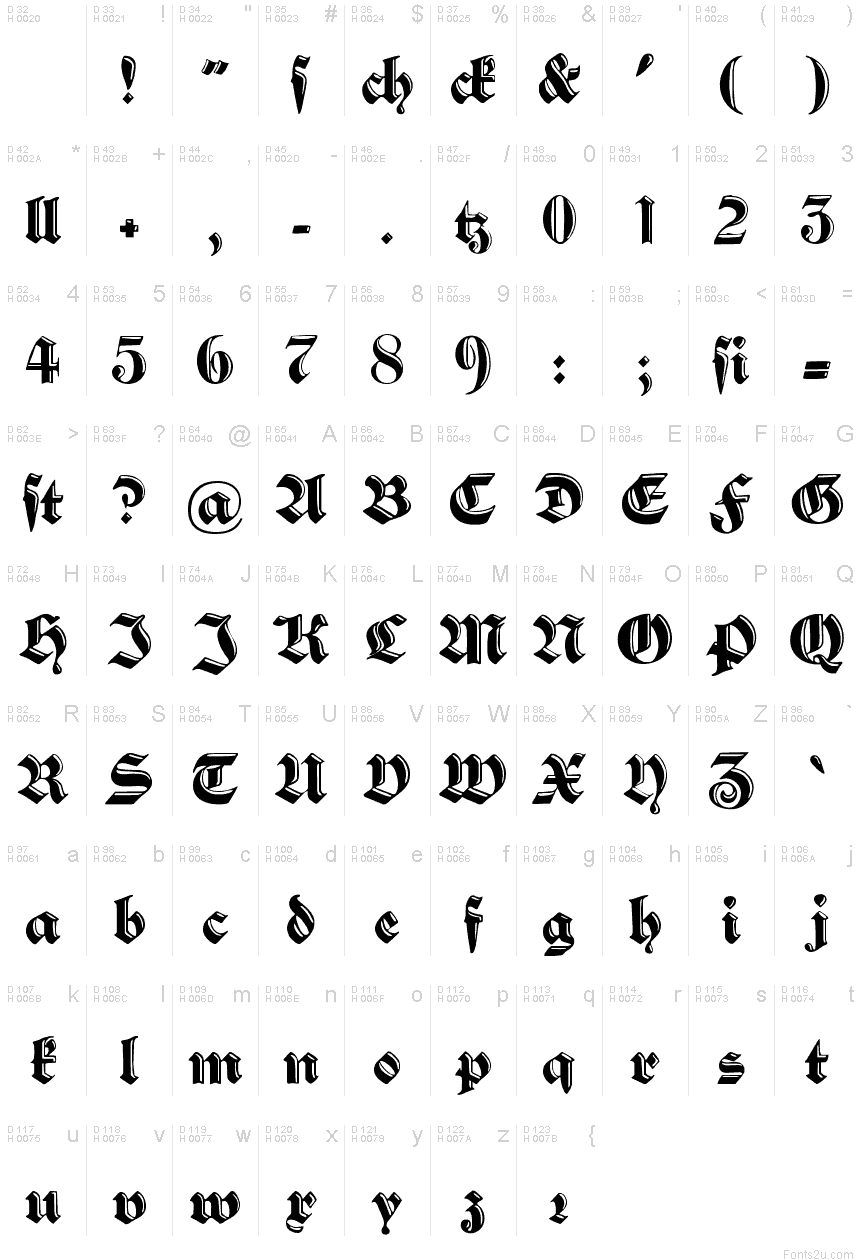
SchwabachDeko by Carl Kloberg of Leipzig is a free decorative blackletter font with broad calligraphic forms, dramatic thick-thin strokes, and sharply cut joins. Curling tails and split flourishes make the lettering feel richly theatrical.
The medieval blackletter tradition makes it especially convincing for historical festival posters and period-themed publishing. Fantasy game graphics are another natural setting, since the pointed shapes can become part of a heraldic crest or illustrated title. For beer packaging and traditional restaurant branding, the elaborate letterforms strongly suggest old-world craft, ceremony, and a premium handcrafted product.
Verzierte Schwabacher von Carl Kloberg, Leipzig, 1891
SchwabachDeko
Hausschnitt der Giesserei Carl Kloberg, Leipzig. Digitalisiert von Petra Heidorn, 2005.